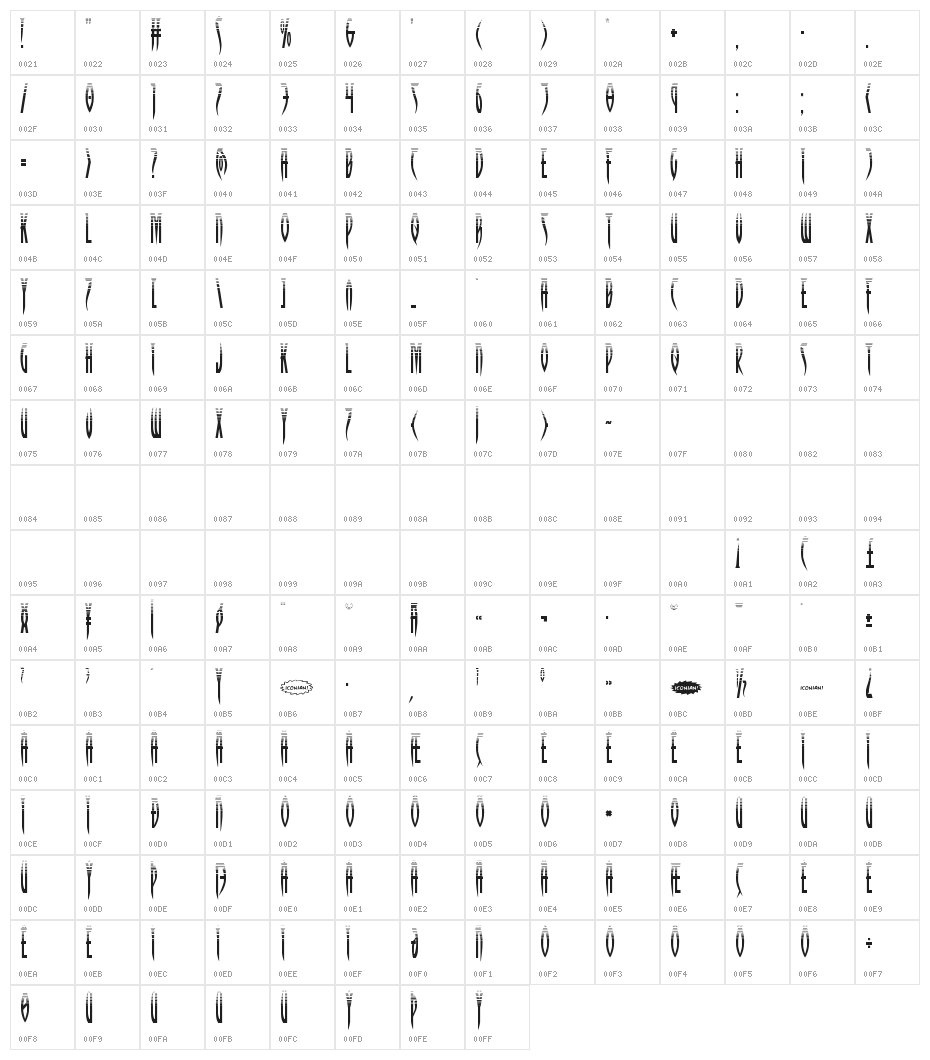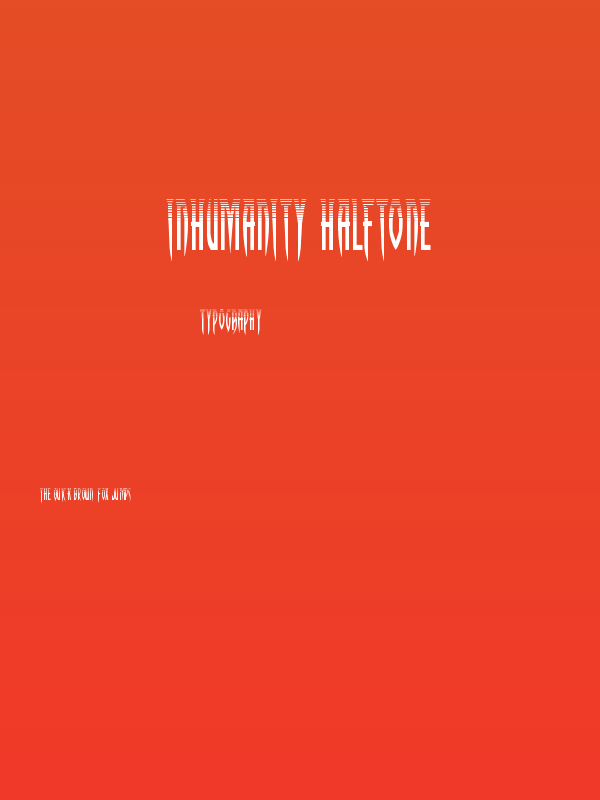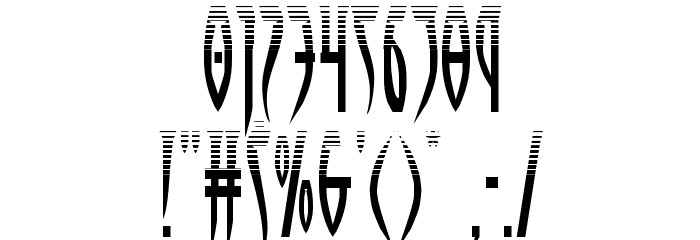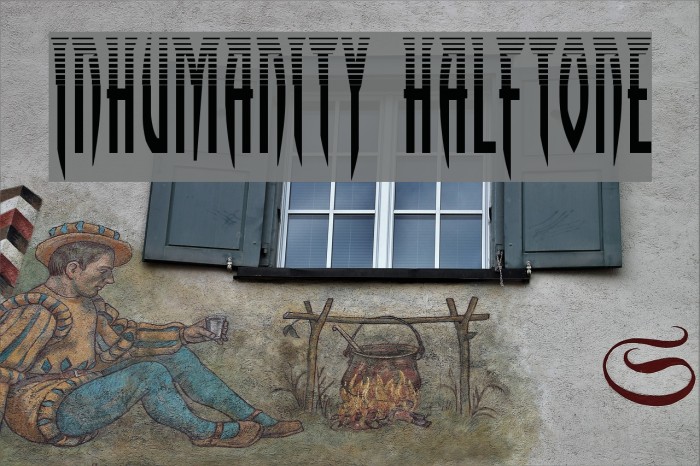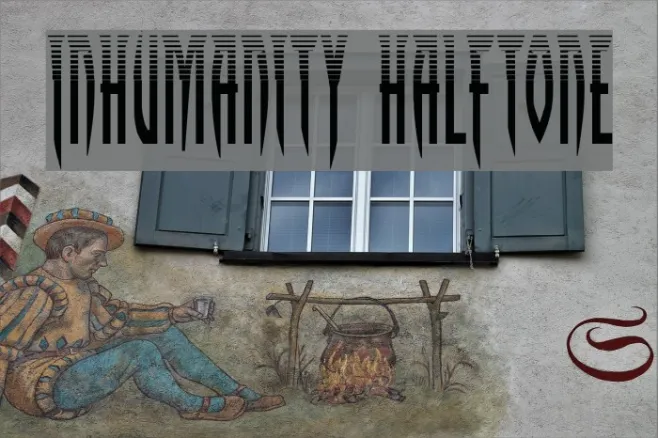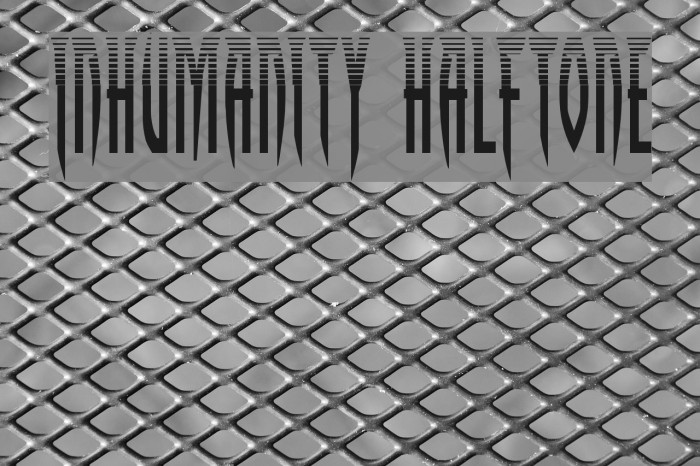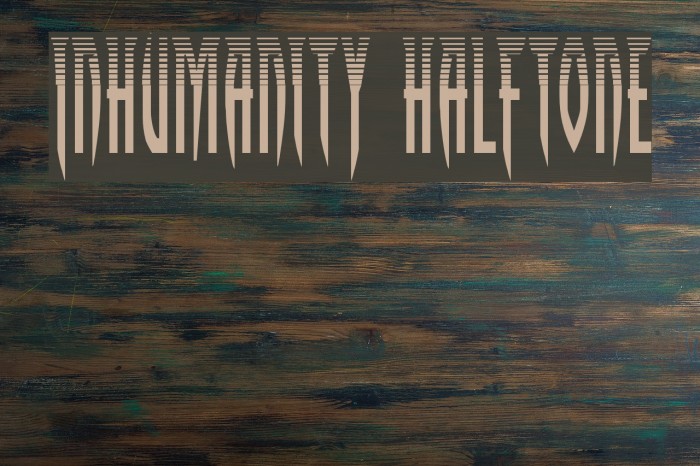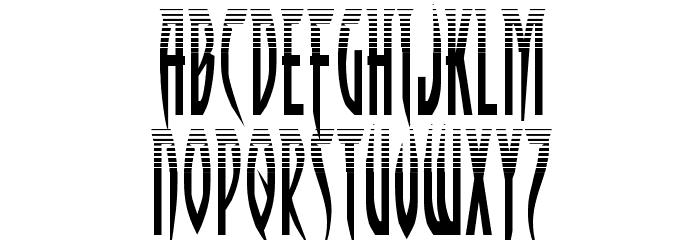
Inhumanity Halftone Font
Inhumanity Halftone Description
This font features a unique halftone effect that creates a striking visual impact. The characters are tall and narrow, with a distinct vertical emphasis and sharp, angular edges. The halftone pattern adds a textured appearance, giving it a modern and edgy feel. The uppercase and lowercase letters maintain a consistent style, while the numbers and special characters integrate seamlessly with the overall design. This font's bold and dynamic nature makes it suitable for attention-grabbing designs.
| Proposed Projects | Ideal for posters, album covers, branding projects, and any design requiring a bold, modern aesthetic. |